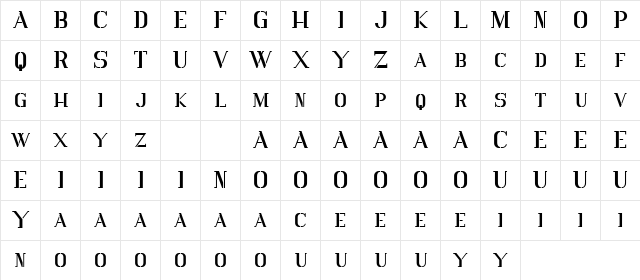
Vlorens Flower DEMO Stencil
| Style | Stencil |
| Foundry | edric studio |
| Designer | Aghnia + Yasri |
Design Context for Vlorens Flower DEMO Typeface
Vlorens Flower DEMO borrows the utilitarian aesthetic of stencil lettering, with its characteristic cutaways and no-frills construction lending an industrial edge.
Ideal for industrial branding, streetwear, military-adjacent aesthetics, and urban signage projects.
Pro Tip: Pair Vlorens Flower DEMO with raw, utilitarian design elements — exposed concrete textures, flat colour, and minimal ornamentation suit it well.